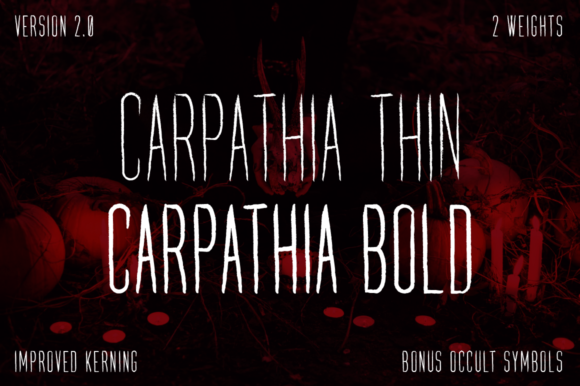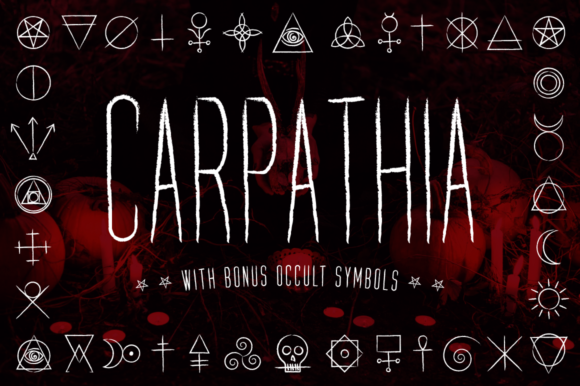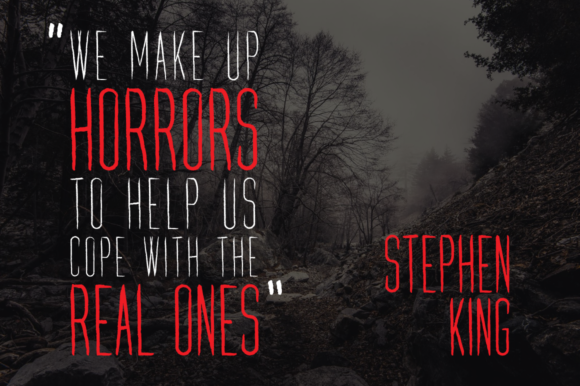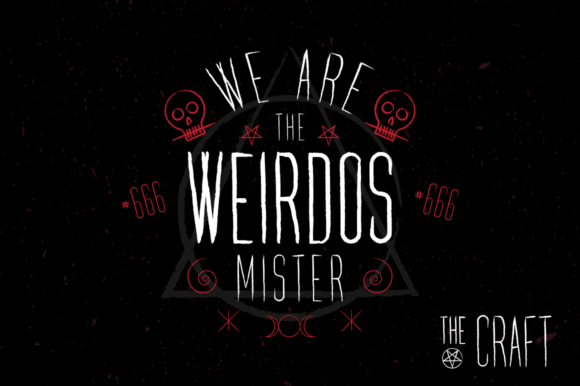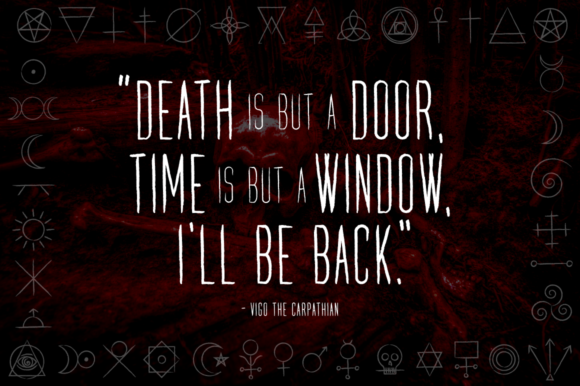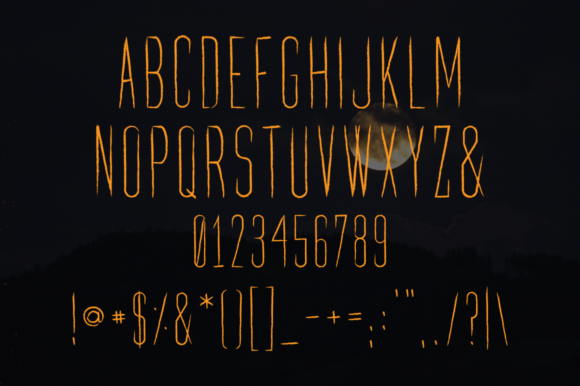
Unleash the Magic of Carpathia Font: A Horror Display Typeface
Are you a designer or crafter looking for a unique and captivating font to add a touch of horror and mysticism to your projects? Look no further than the Carpathia Font, a horror display typeface inspired by witchcraft and sorcery. This ultra-condensed carved style font is sure to evoke a spooky handmade feel that will add character to any project.
What is Carpathia Font?
Carpathia Font is a carefully crafted display typeface that draws inspiration from the mysterious and often feared world of witchcraft and sorcery. Its unique design features an ultra-condensed style that gives it a distinctive, carved look. This font is perfect for designers and crafters who want to add a touch of darkness and mystique to their work.
Key Features of Carpathia Font
- Ultra-condensed carved style: The Carpathia Font features an ultra-condensed style that gives it a unique, carved look.
- Horror and mysticism inspired: This font is inspired by the mysterious and often feared world of witchcraft and sorcery.
- Spooky handmade feel: The Carpathia Font has a spooky handmade feel that will add character to any project.
- Perfect for headings and logos: This font is best used for headings, logos, quotes, gig posters, apparel designs, invitations, greeting cards, packaging, album covers, and more.
Use Cases for Carpathia Font
The Carpathia Font is a versatile typeface that can be used in a variety of projects, including:
- Headings and logos: Use the Carpathia Font to create eye-catching headings and logos that will grab attention.
- Gig posters: Create bold and striking gig posters that will stand out from the crowd.
- Apparel designs: Add a touch of horror and mysticism to your apparel designs with the Carpathia Font.
- Invitations and greeting cards: Create unique and captivating invitations and greeting cards that will leave a lasting impression.
- Packaging and album covers: Use the Carpathia Font to create eye-catching packaging and album covers that will stand out on store shelves.
The Bonus: Over 50 Vector Occult Symbols
One of the most exciting features of the Carpathia Font is the bonus package of over 50 vector Occult Symbols in both AI & EPS formats. These symbols can be used to add an extra layer of depth and meaning to your projects. Whether you’re creating a logo, a poster, or a packaging design, these symbols can help you to create a unique and captivating visual identity.
Why Choose Carpathia Font?
So why choose the Carpathia Font for your next project? Here are just a few reasons:
- Unique and captivating design: The Carpathia Font features a unique and captivating design that will add a touch of horror and mysticism to any project.
- Versatile and flexible: This font can be used in a variety of projects, from headings and logos to gig posters and apparel designs.
- High-quality and professional: The Carpathia Font is a high-quality and professional typeface that is perfect for designers and crafters who want to create high-end designs.
In conclusion, the Carpathia Font is a horror display typeface that is perfect for designers and crafters who want to add a touch of horror and mysticism to their projects. With its ultra-condensed carved style, spooky handmade feel, and bonus package of over 50 vector Occult Symbols, this font is sure to be a hit with anyone who wants to create unique and captivating designs. So why wait? Download the Carpathia Font today and unleash the magic of horror and mysticism in your designs!